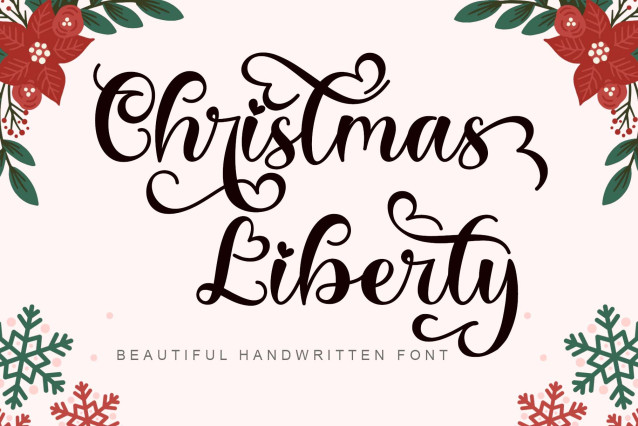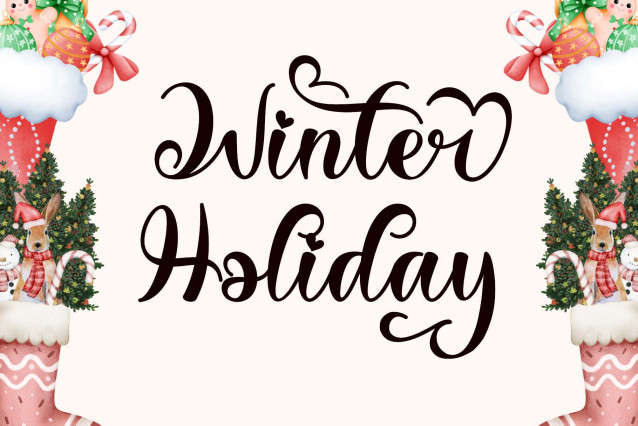
Christmas Liberty Font is a beautiful handwritten script font that sparkles with festive charm and elegance. Designed with graceful flourishes, heart-tipped strokes, and playful loops, this font captures the warmth and joy of the holiday season. Its luxurious swashes and ligatures bring a handcrafted sophistication, ideal for Christmas cards, winter wedding invitations, gift tags, festive branding, and seasonal social media posts. Every character is crafted with love, featuring both decorative punctuation and stylish swashes to give your text a personalized, magical touch. Christmas Liberty transforms words into joyful expressions full of holiday spirit.